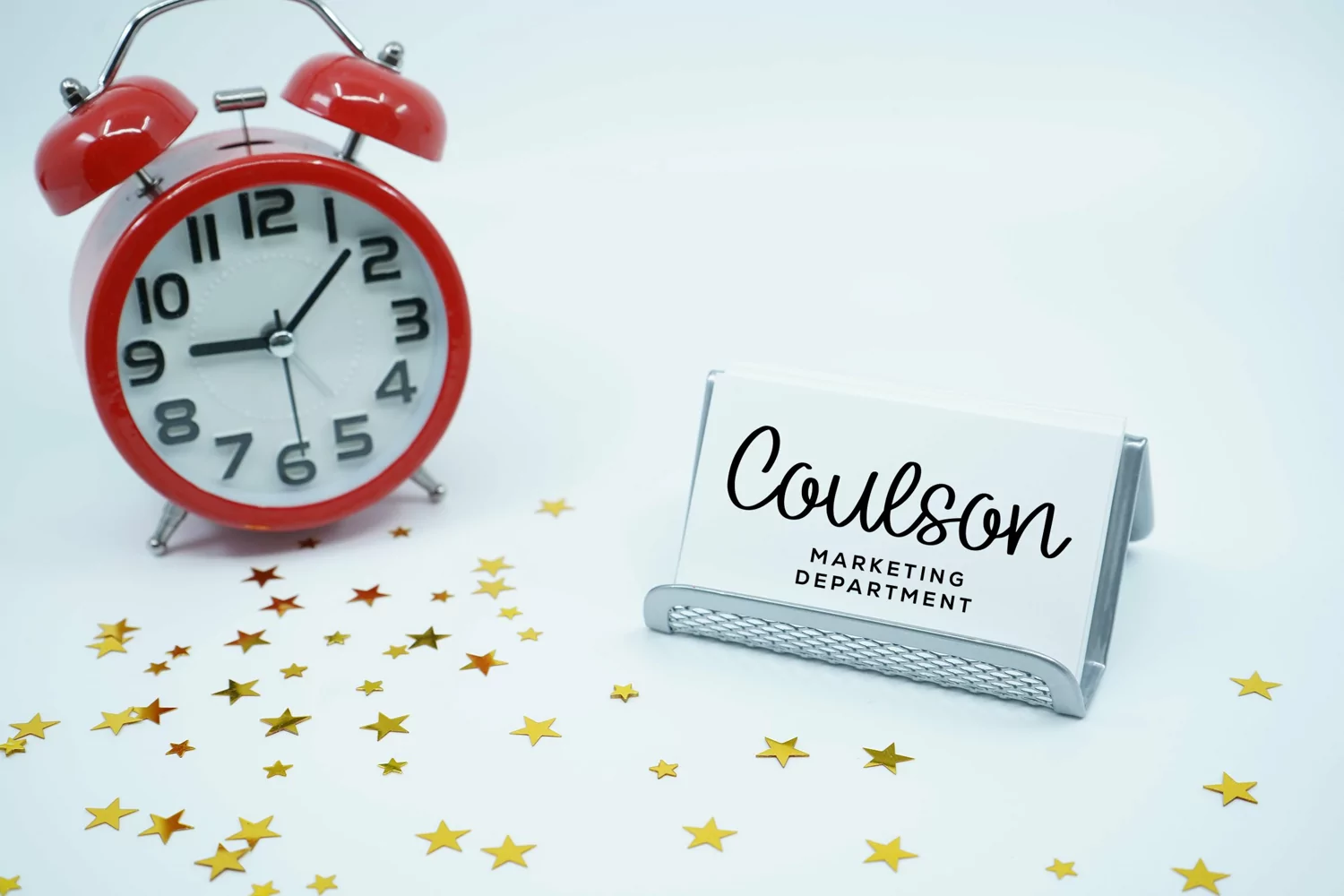
Blue Sapphire - Beauty Handmade Font that contain lowercase, uppercase, symbol, and also support multi language. There’s a lot ligatures in this font. This Font also comes with ligatures, alternates and many more. this font suitable for fashion, branding, catalog and other design what you want.